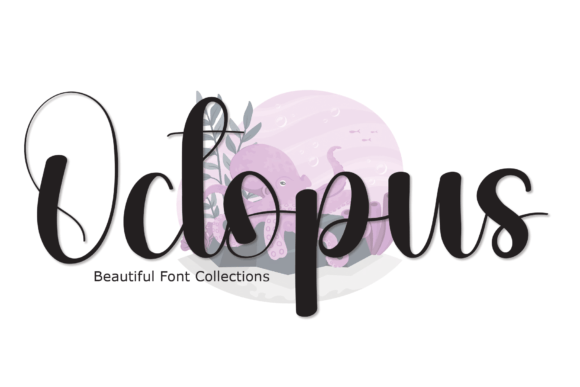
Introducing Octopus Font, the script font that will bring life and personality to your designs! Created by the talented William Jhordy, Octopus Font is the perfect choice for anyone looking for a fresh and unique handwriting style.
With its sweet and friendly appearance, Octopus Font is sure to capture the hearts of your audience. Whether you're creating wedding invitations, greeting cards, or designing anything else that needs a playful touch, this font is the perfect choice.
Octopus Font is incredibly versatile and can be used in a wide range of designs. Its clean and neat style makes it easy to read and perfect for adding a touch of personality to any project.
What sets Octopus Font apart from other script fonts is its unique character. This font is full of energy and will bring your designs to life. It's perfect for creating a sense of playfulness, warmth, and friendliness in your designs.